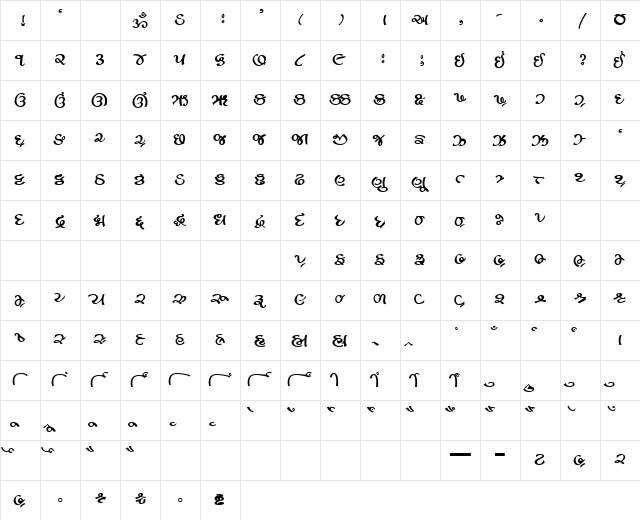
AkrutiGujAkshata Normal
Design Context for AkrutiGujAkshata Typeface
AkrutiGujAkshata is a composed and adaptable typeface that performs quietly and consistently across a wide range of design contexts.